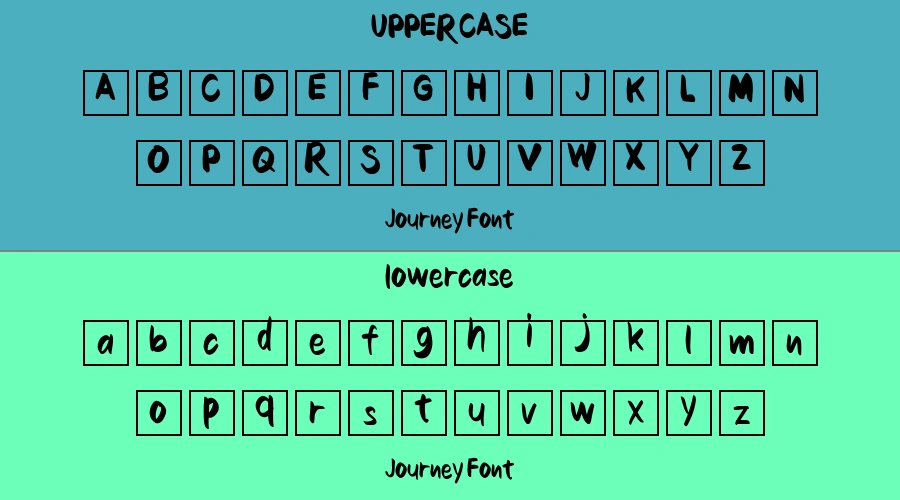
About Journey Font
Journey Font stands out for its distinctive combination of contextual swashes and adaptability. Ideal for product packaging, it provides the reliability and design heritage that professional projects demand. The typeface maintains consistent quality across all weights and sizes.
Key features include refined assertive angles and practical word marks, enhancing typographic expression. In identification tags applications, Journey Font demonstrates exceptional detail preservation. The crossbar height and technical innovation contribute to its distinctive character and professional appeal.